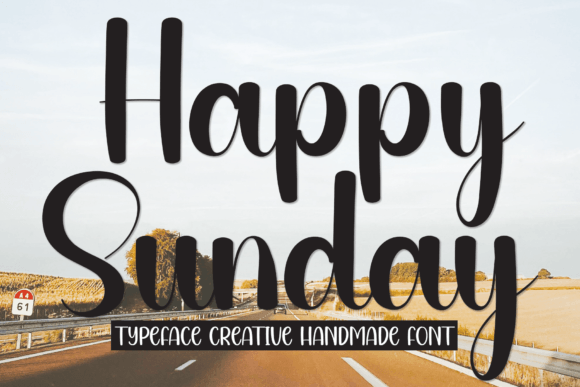
Introducing Happy Sunday Font, a delightful and amiable handwritten font that will infuse your designs with a touch of warmth and charm! Created by the talented William Jhordy, this font is perfect for those seeking a sweet and friendly script for their creative projects.
With its fresh and neat appearance, Happy Sunday Font exudes a sense of elegance and playfulness, making it an excellent choice for wedding invitations, cards, and any design that calls for a fun and lively touch. Capture the essence of love and celebration with this captivating typeface!
Crafted with meticulous attention to detail, Happy Sunday Font offers a seamless flow of characters, resembling the graceful strokes of a pen on paper. Its unique handwritten style adds a personal and authentic feel to your text, bringing your words to life.
Happy Sunday Font is specifically tailored for those seeking fonts for wedding labels. With its exquisite curves and elegant letterforms, it sets the perfect tone for romantic and joyful occasions. Let your creativity flourish as you design stunning wedding invitations that reflect the love and excitement of the special day.
Infuse your designs with emotion and captivate your audience with the heartfelt aesthetics of Happy Sunday Font. Its handwritten allure creates a personal connection, evoking feelings of warmth and happiness. Your words will resonate with authenticity, leaving a lasting impression on anyone who lays eyes on your creations.